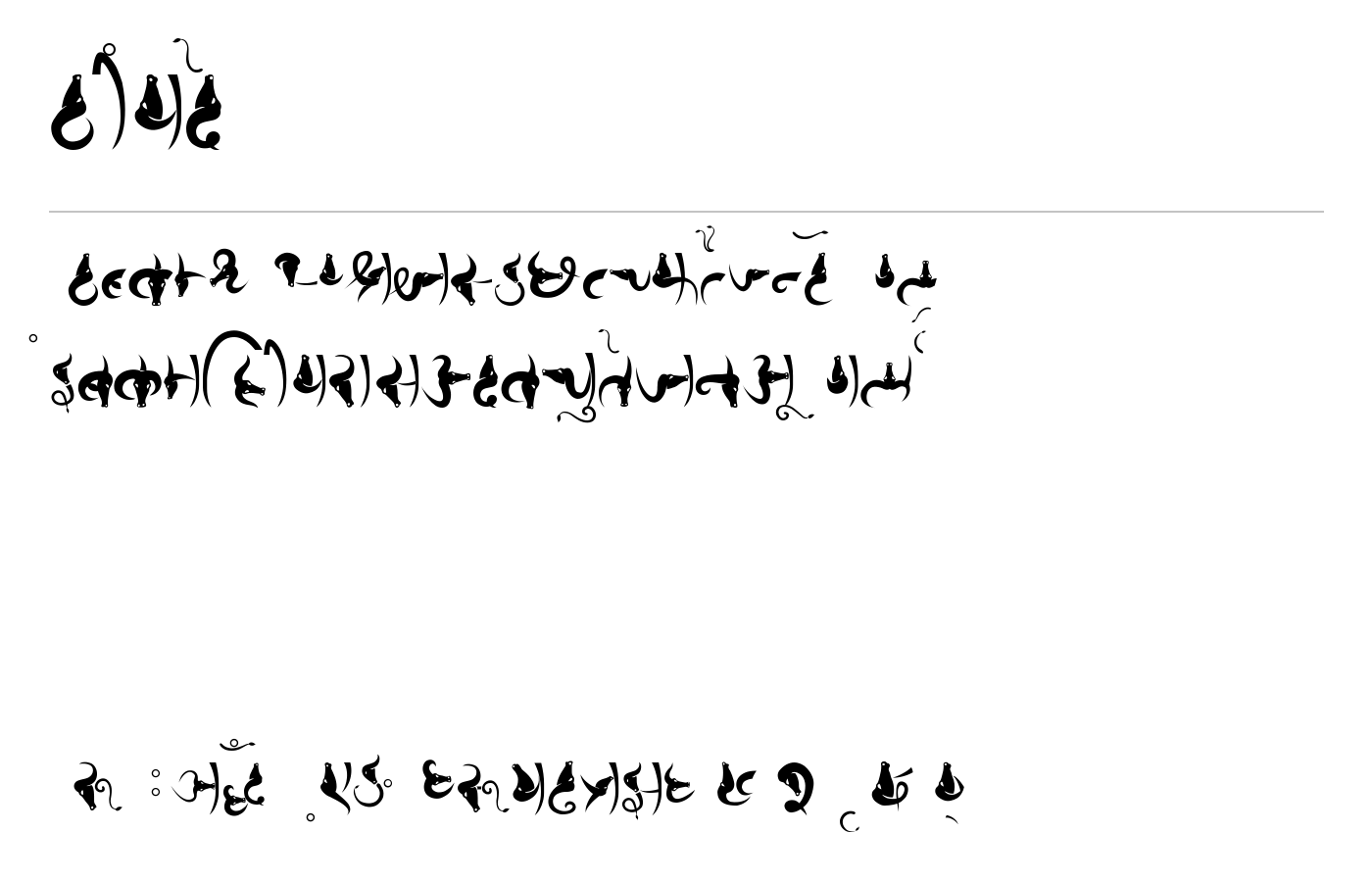
Bhains Font is a highly decorative, artistic typeface with a bold and ornamental style that leans towards a display or script classification. Its intricate, swirling shapes and strong contrast create a mysterious and exotic feel, making it well-suited for unique branding, eye-catching posters, or creative projects where an elaborate and dramatic visual impact is desired. This font works best in larger sizes where its complex details can be appreciated, rather than for body text or lengthy readability.
Bhains Font